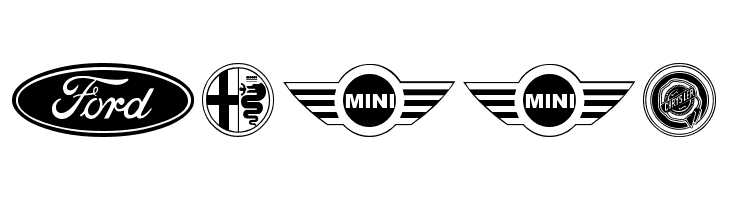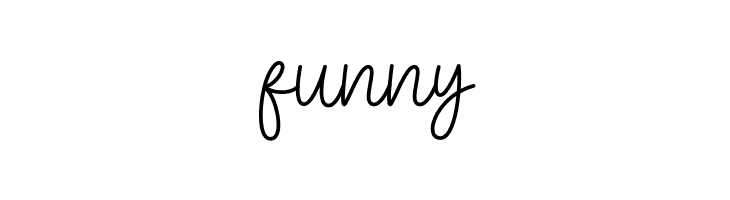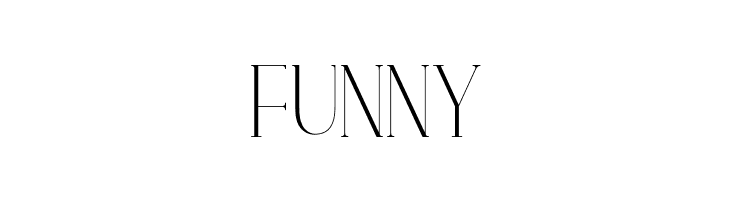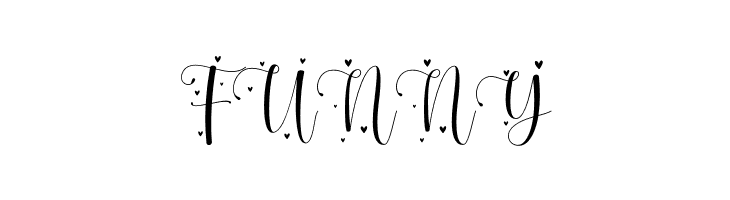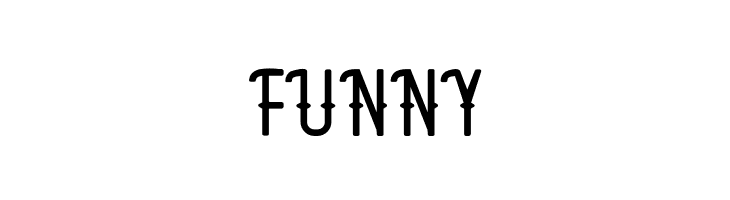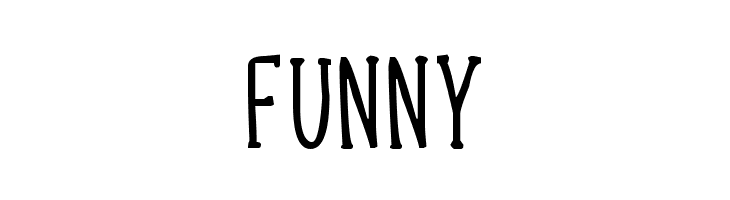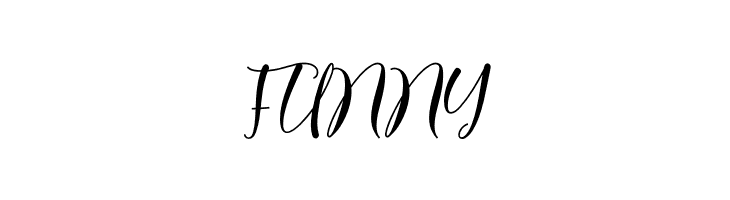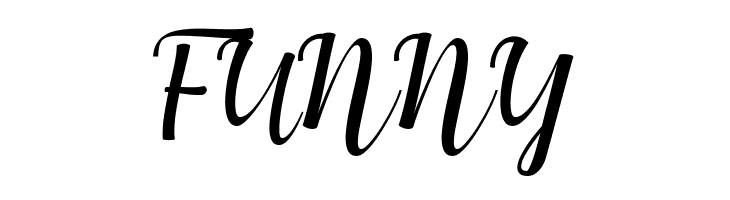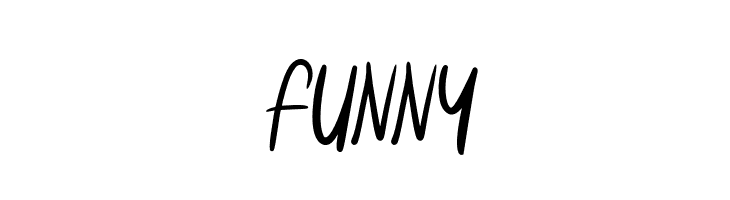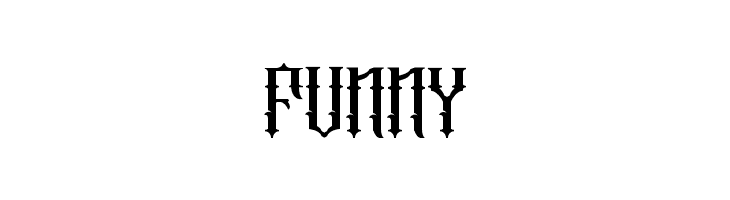
A flowing, cursive script with interconnected letters and a friendly, handwritten style.
A charming, flowing script font with smooth, continuous strokes and elegant curves.
A whimsical script font with heart motifs and elegant curves.
A playful, hand-drawn font with a whimsical and casual style.
A graceful and elegant script font with flowing, cursive letters.
Distressed, jagged, hand-drawn display font with chaotic energy.
A pictographic font inspired by African art, featuring bold and expressive symbols.
Decorative symbol font featuring African archetypal imagery.
A bold serif font with high contrast and elegant serifs, perfect for impactful headlines.
A playful, handwritten font with smooth, fluid strokes and a dynamic appearance.
A sophisticated script font with elegant loops and flourishes.
A graceful and flowing script font with elegant curves and a sophisticated style.
A graceful and elegant script font with flowing, cursive letterforms and ornate flourishes.
A playful, hand-drawn font with rounded edges and a whimsical style.
A futuristic, geometric font with rounded edges and uniform strokes.
A refined and elegant typeface with thin, elongated strokes and decorative flourishes.
A dynamic and elegant script font with flowing, cursive letterforms.
A dynamic and expressive script font with fluid, sweeping strokes.
A dynamic handwritten font with fluid, slightly slanted letterforms and a lively, personal touch.
A lively handwritten font with dynamic strokes and playful tilt.
A bold, geometric font with strong, angular lines and a modern aesthetic.
A bold, italic font with a dynamic and modern style.
A bold, distressed decorative font with a vintage, textured style.
A collection of dynamic pictograms representing movement and accessibility.
A bold, brush-style font with dynamic strokes and artistic flair.
A bold, monospaced font with a modern and vintage blend.
A bold, gothic-inspired font with sharp, angular lines and intricate detailing.
A bold, three-dimensional font with a strong shadow effect and geometric structure.
An ornate and decorative font with swirling embellishments.
A whimsical and decorative font with loops and curves.
A bold, italicized font with playful, swirling loops and consistent stroke thickness.
A playful, script-like font with continuous loops and an italic slant.
A decorative, hollow font with swirling, playful lines.